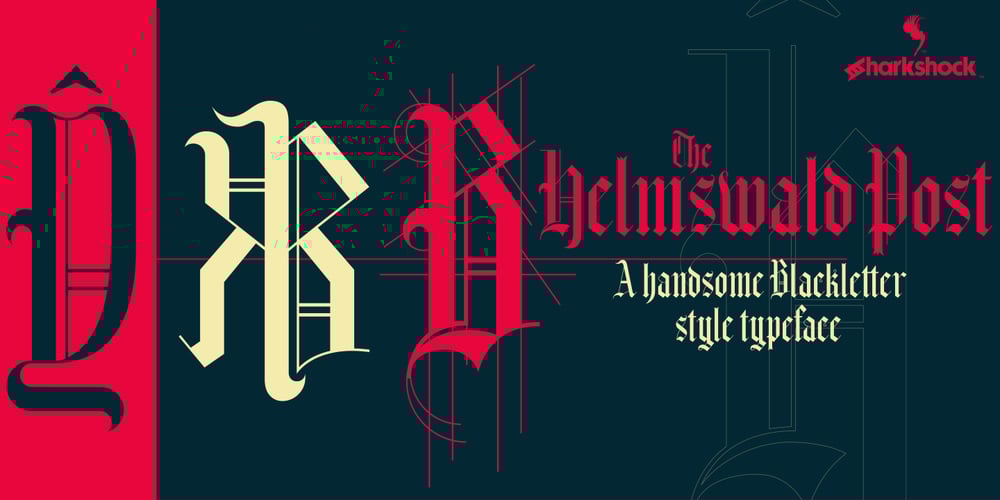
Helmswald Post Font Family was designed by Dennis Ludlow and published by Sharkshock. Helmswald Post contains 1 styles and family package options. Helmswald Post is a handsome Blackletter that’s been years in the making. There’s a mix of wispy terminals, flamboyant caps, and the use of negative space to create contrast. Elements from High German, Old English, and many other styles make their way into this gorgeous display font. The result is a medieval looking script with cleaner, more modern feel. In addition to European accents Helmswald Post is equipped with Cyrillic, alternates and ligatures. Old world numerals are present by default but may be substituted by accessing the stylistic sets. Use it for a book cover, web headings, or a restaurant logo.